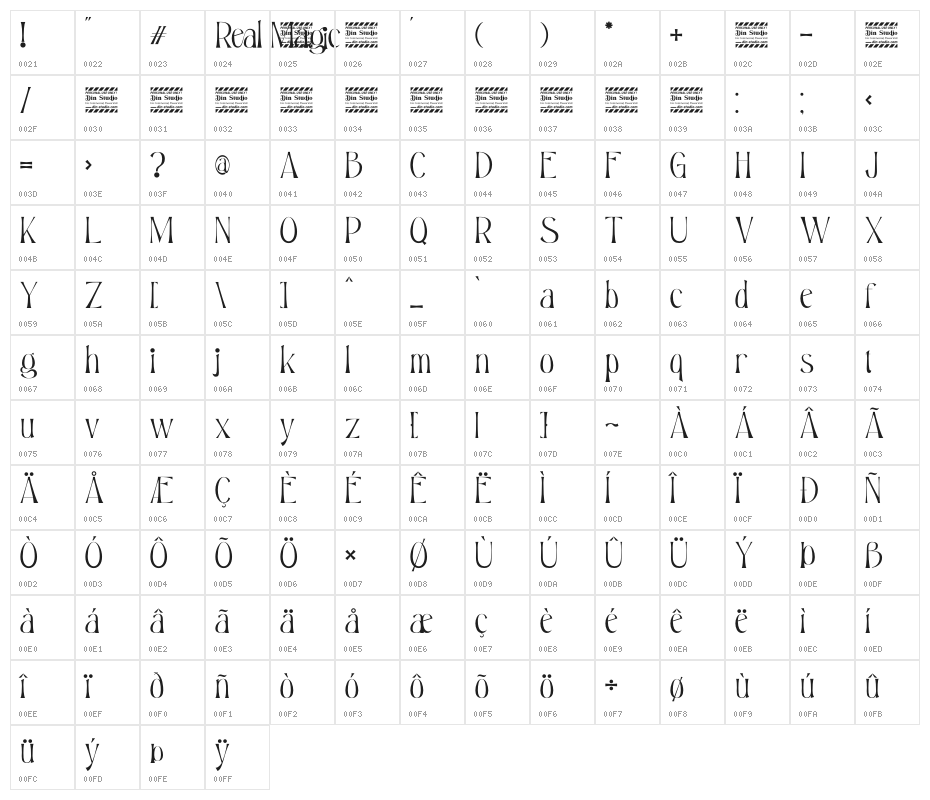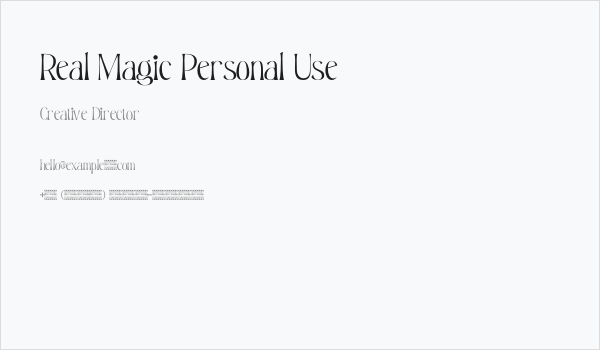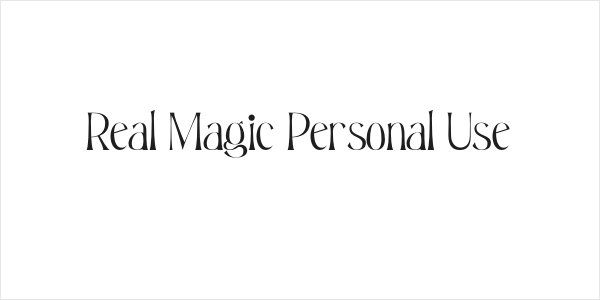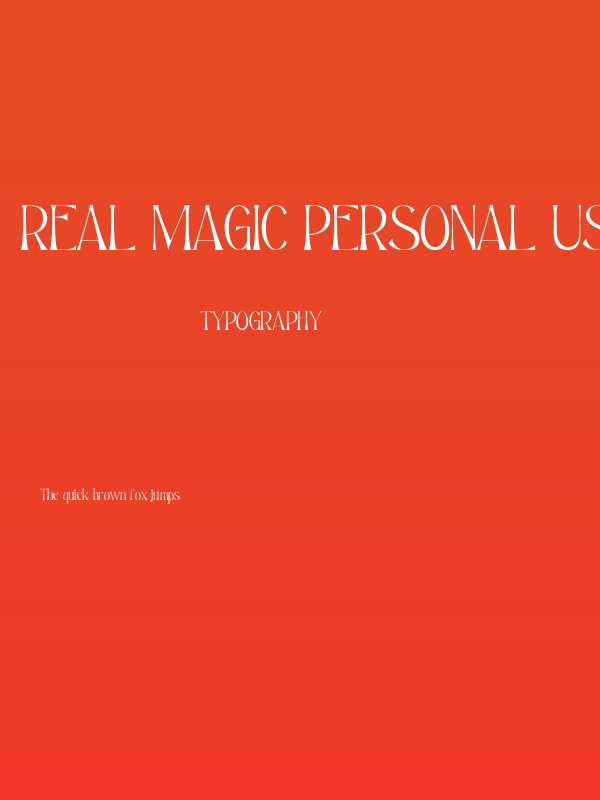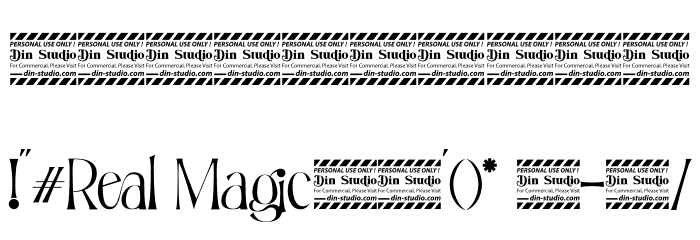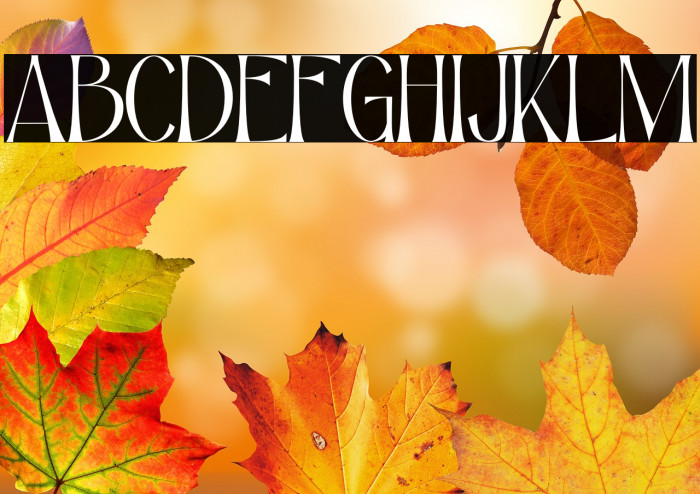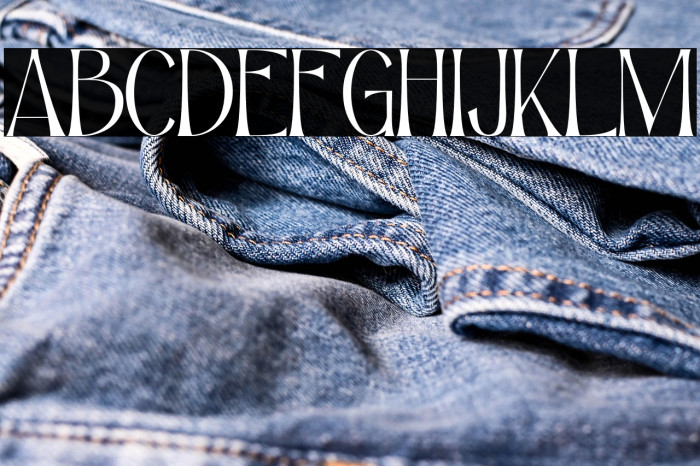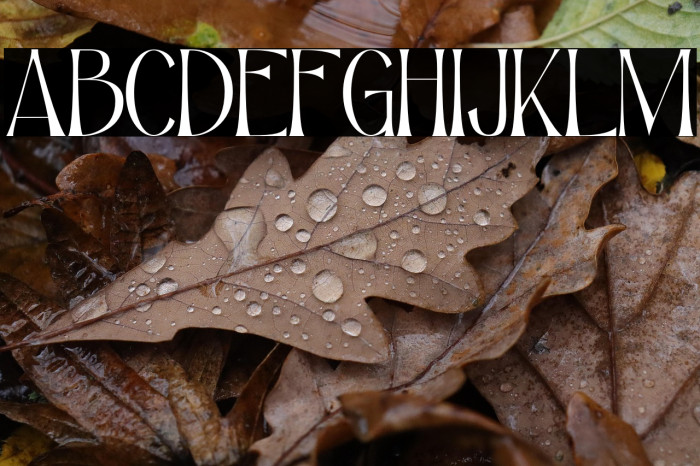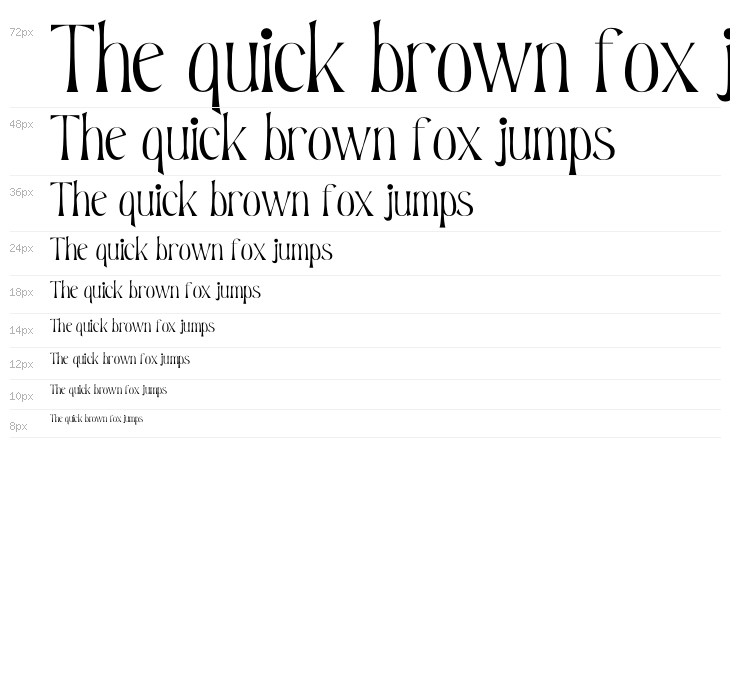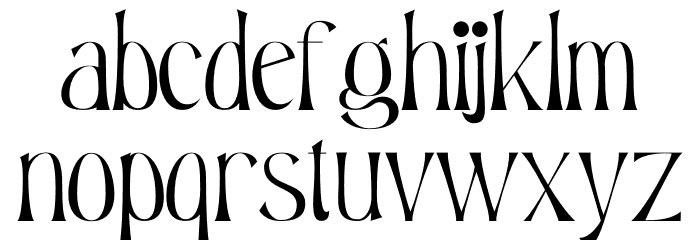
Real Magic Personal Use Font
Real Magic Personal Use Description
This font features a unique and whimsical design with tall, narrow characters that have a playful and magical flair. The uppercase letters are particularly elongated, with varying stroke widths that create a dynamic and eye-catching effect. The lowercase letters maintain this whimsical style, with some characters featuring distinctive loops and curves. The numbers and special characters are consistent with the overall theme, adding to the font's charm. This font is ideal for projects that require a touch of fantasy or creativity, making it perfect for invitations, posters, and branding that seeks to stand out.
| Overall Style | Whimsical, Playful, Fantasy |
| Use Case | Headlines, Invitations, Posters, Branding |
| Proposed Projects | Ideal for fantasy-themed invitations, creative posters, unique branding, and eye-catching headlines. |